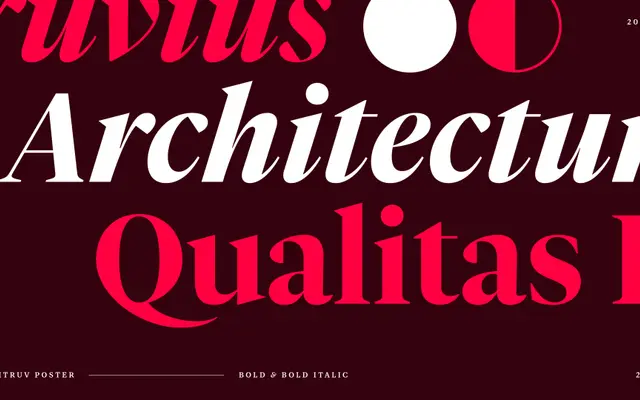
Vitruv Poster specimen from Studio Rene Bieder
A high-contrast display serif from René Bieder's Vitruv family, optimised for poster-scale settings with classical Roman-themed style names.
Part of the broader Vitruv type system alongside Text and Headline subfamilies, the Poster cut is built for large sizes where contrast and presence matter most. Twelve styles span Thin to Black with matching italics, and the family carries a substantial OpenType feature set including small capitals, oldstyle figures, tabular figures, case-sensitive forms and several alternate glyphs. Style names drawn from Roman history and architecture — Germanicus, Romanum, Augustus, Alexandria — signal an antique classical reference that runs through the design.
A high-contrast serif designed explicitly for poster and display use, with classical Roman naming conventions suggesting an antique or neoclassical stylistic lineage suited to large-scale settings.